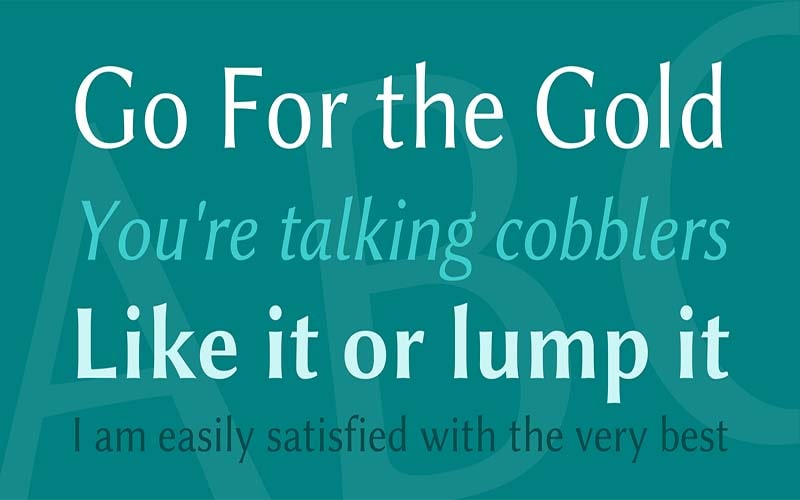
Linux Biolinum Font is a beautiful Basic, Sans serif typeface. Philip H. Poll first took charge of designing and releasing this typeface for the first time.
It has a decent and delicate texture, as well as slightly sharp corners, which you will notice when using it on larger text. This font makes your text unique and stylish.
The subfamily of this font is regular and contains 15 different styles such as bold, italic, outline bold, shadow italic, outline italic, and so on. These styles enhance the beauty of this font.
Supporting a variety of languages and featuring keen traits. This classy font family is one of the extremely flawless creations in the field of typography.
| Style: | Basic, Sans serif Typeface |
| Font Designer: | Philip H. Poll |